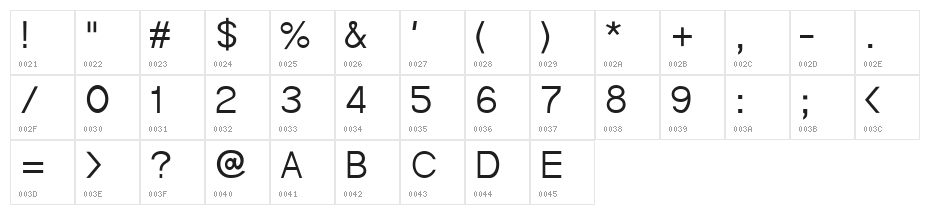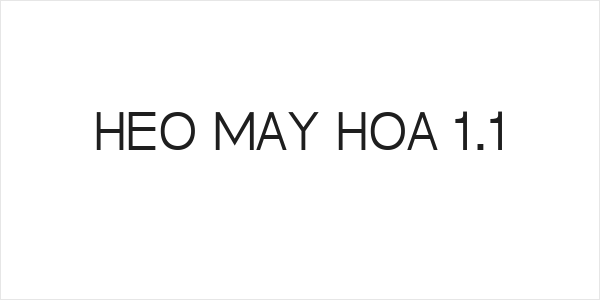
Heo May Hoa 1.1 Font
Heo May Hoa 1.1 Description
This font features a clean and modern sans-serif design, characterized by its simplicity and readability. The letters are evenly spaced with a uniform stroke width, contributing to a balanced and harmonious appearance. The uppercase and lowercase letters maintain a consistent style, making it versatile for various applications. The numerals are clear and distinct, ensuring legibility in numerical data. Special characters are well-integrated, enhancing the font's utility in diverse contexts. Its straightforward design makes it suitable for both digital and print media, offering a professional and contemporary look.